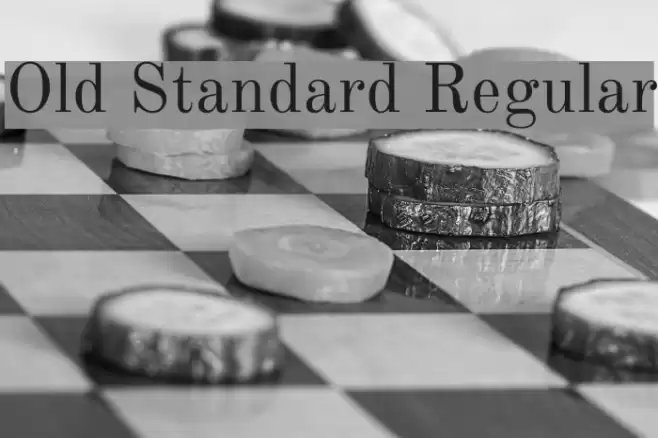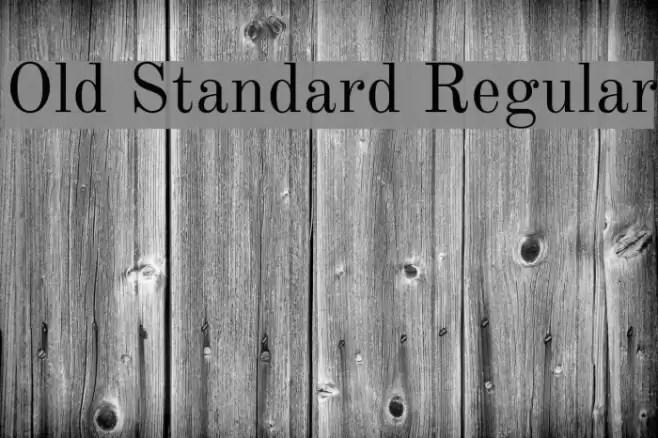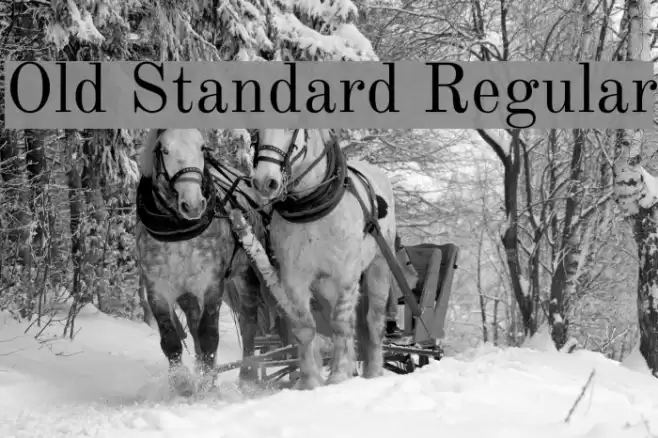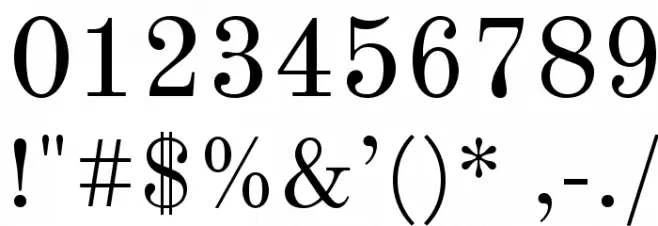
Old Standard Regular Font
Old Standard Regular Description
This font features a classic serif design with elegant and refined strokes. The uppercase letters are bold and commanding, while the lowercase letters maintain a balanced and harmonious appearance. The numerals are clear and easily distinguishable, making them suitable for various applications. The special characters are crafted with precision, adding to the font's versatility. Overall, the font exudes a timeless and sophisticated aesthetic, ideal for projects requiring a touch of elegance.
A classic serif font with elegant and refined strokes from Uncategorized fonts.
- Proposed Projects: Ideal for book typesetting, formal invitations, branding materials, and editorial design.
- Overall Style: Classic
- Use Case: Body text, Headlines, Editorial design